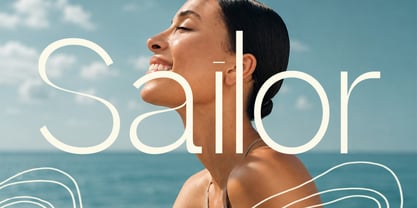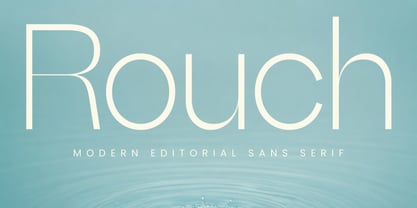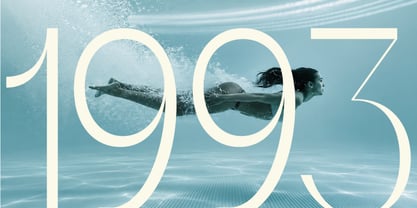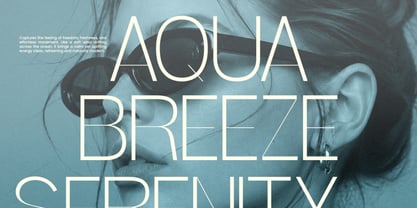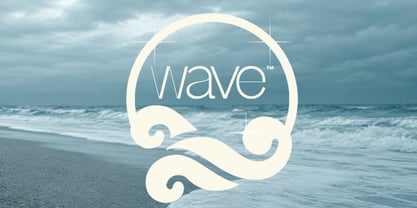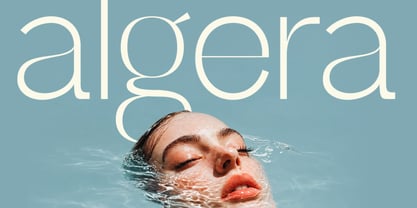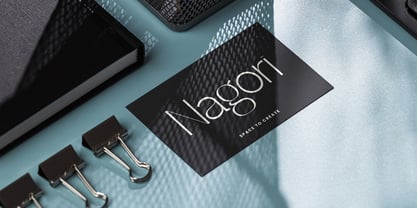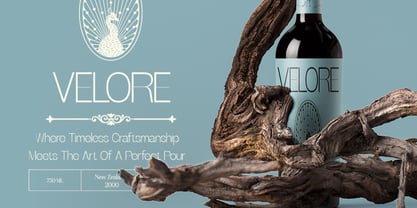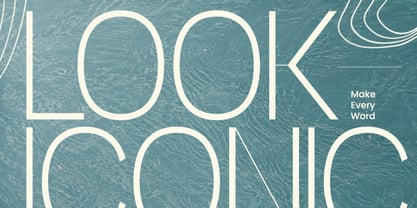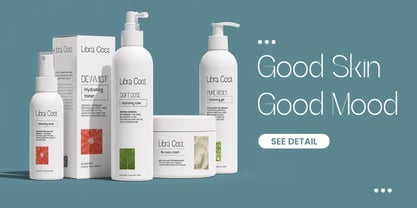
Rouch
by Rasio Studio
The Rouch Font Family was designed by Fajar Indra and published by Rasio Studio. Rouch contains 1 styles. More about this family
Rouch is a modern editorial sans serif typeface featuring extremely thin strokes, elongated proportions, and refined geometric curves. The uppercase and lowercase characters are designed with a light monoline construction, giving the font an airy and sophisticated appearance while maintaining clear letter recognition. Its tall proportions, open counters, delicate terminals, and generous visual spacing make it particularly effective when typography needs to feel refined without becoming overly decorative.
Relevance and Use Case is perfect for projects that require lightweight, refined, and contemporary typography with a strong editorial character. Its delicate strokes and elongated forms work especially well for magazine titles, fashion campaigns, beauty branding, luxury packaging, lookbooks, posters, identity systems, and minimalist promotional graphics. For the best visual result, use it at larger sizes with generous spacing and combine it with a more substantial typeface when additional body text or hierarchy is required.